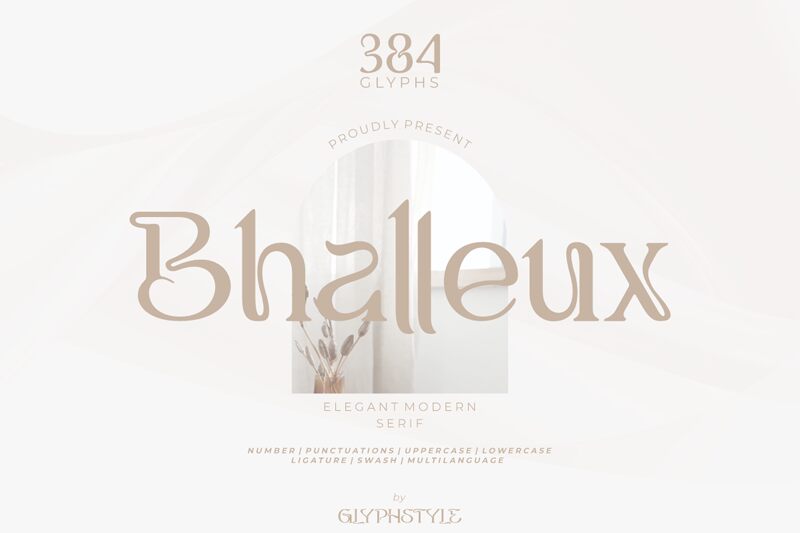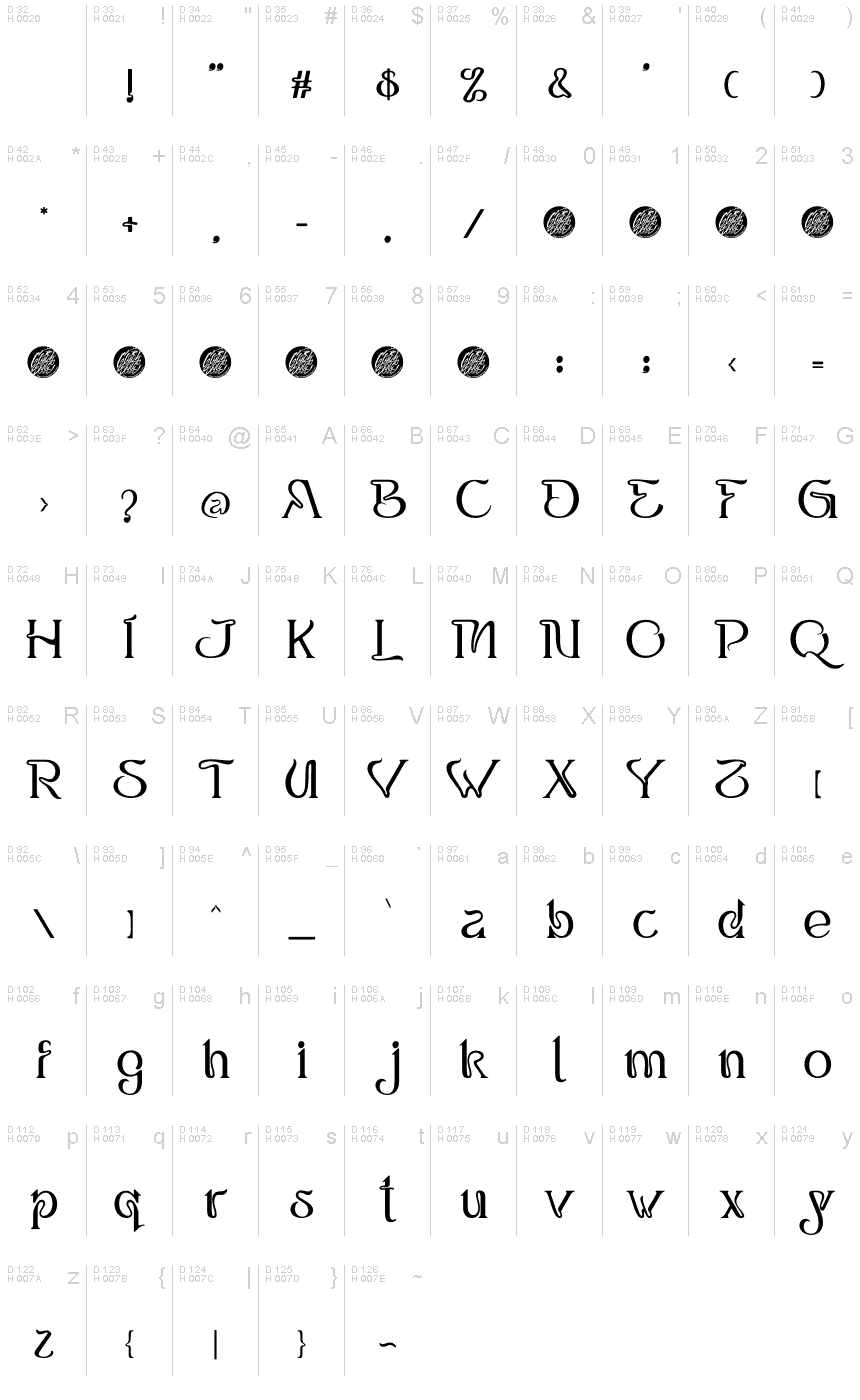
Bhalleux Demo
Bhalleux, crafted by the imaginative minds at Glyphstyle, stands as a beacon of retro elegance in the realm of display fonts. Its semi-light weight weaves a narrative of delicate strength, while the unique blend of curved shapes breathes life into every character. This modern serif font is not just about letters; it's an artistic symphony complete with an array of ligatures and swashes that promise to infuse your creative projects with a sense of sophistication.
Perfectly suited for branding endeavors and logos that demand a touch of class, Bhalleux also shines in personal celebrations like weddings. It effortlessly elevates social media posts and advertisements with its serene charm. Whether gracing product packaging or making its mark on professional stationery, this font's elegant serifs are designed to make an impression. Embrace Bhalleux for any project where distinction and graceful style are paramount.